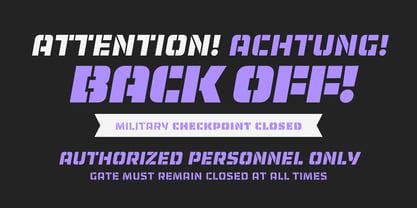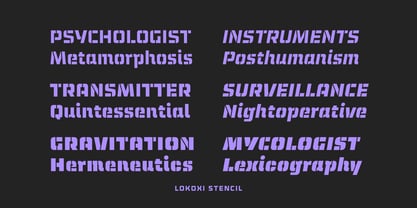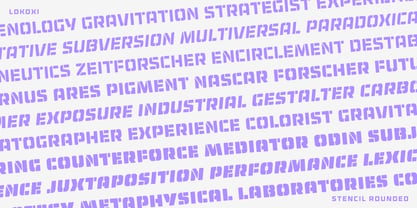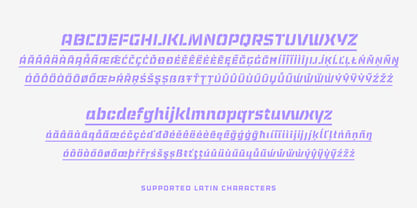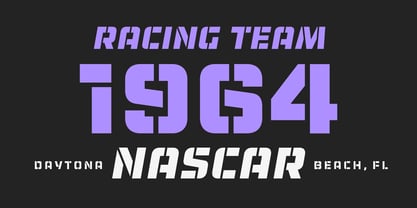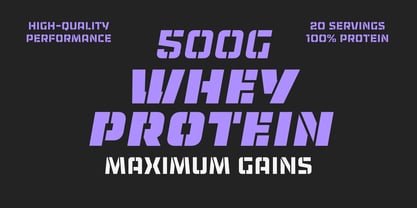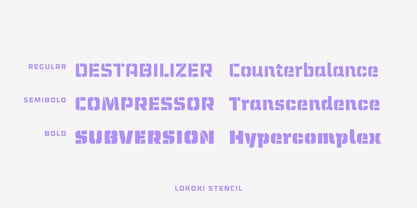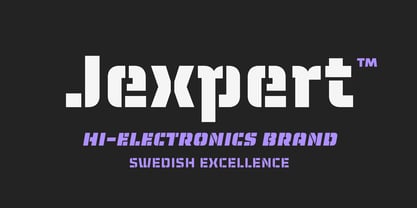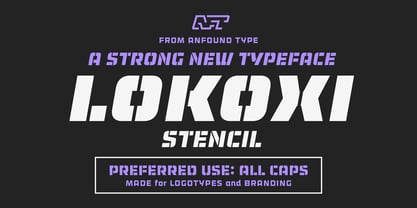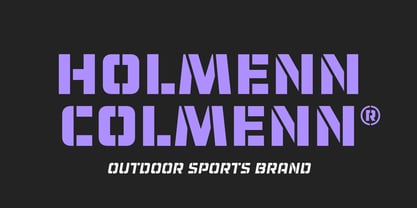
Lokoxi Stencil Pro
Lokoxi Stencil is a bold low-contrast display typeface crafted to turn heads. Designed especially for striking logotypes, branding, and packaging, it brings a confident, contemporary edge to any visual identity. Heavy by nature and best used in all caps, Lokoxi Stencil is built to make a strong first impression.
The complete family includes roman, slanted italic, and rounded variants, along with alternate characters for the euro sign, registered and published marks, and German ß. The Pro version also adds basic Cyrillic support. With 380 glyphs plus 80 additional Cyrillic glyphs in the Pro version, bringing the total to 460 glyphs. Lokoxi Stencil is ready for everything from loud branding to standout packaging.